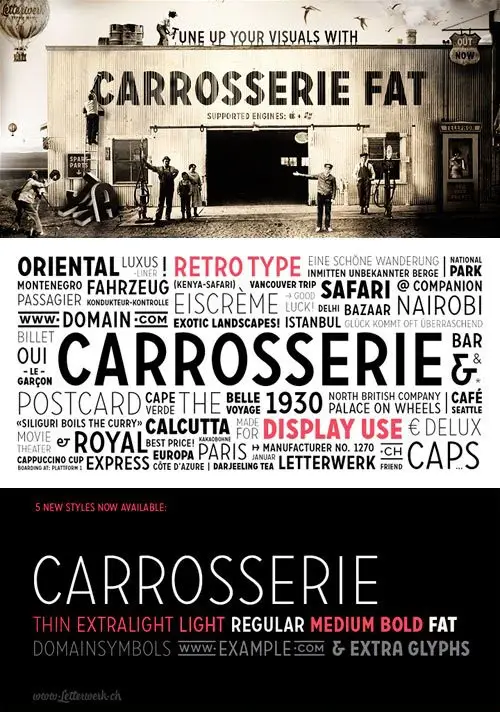
Carrosserie is made for display use, inspired by the shapes of the 30’s. It is a capital letter font with alternate characters and special domain symbols. The font is now available in thin, extra light, light, regular, medium, bold & fat. Enjoy!